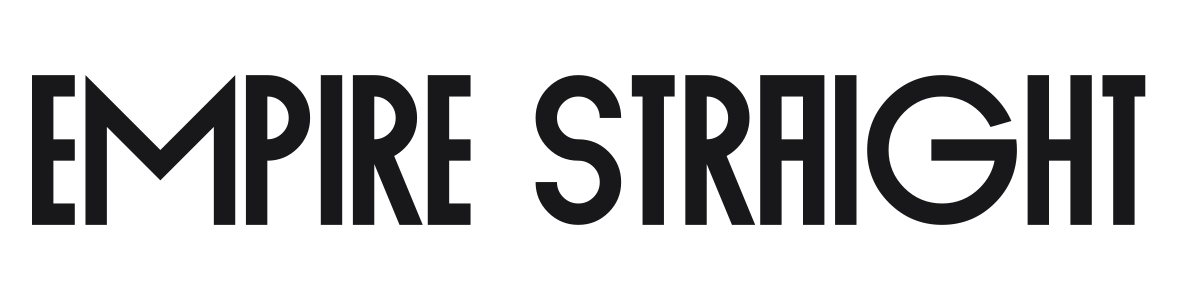
Empire Straight
Empire Straight is a bold, uppercase display face from Chequered Ink that channels the clean geometry and vertical emphasis of 1920s and '30s Art Deco lettering. The letterforms are angular and tightly structured, with strong horizontal detailing that recalls the signage of old movie palaces and hotel lobbies. Built for headlines, posters, and vintage-themed branding where you want that era's confidence without the fussiness of full ornamental Deco.